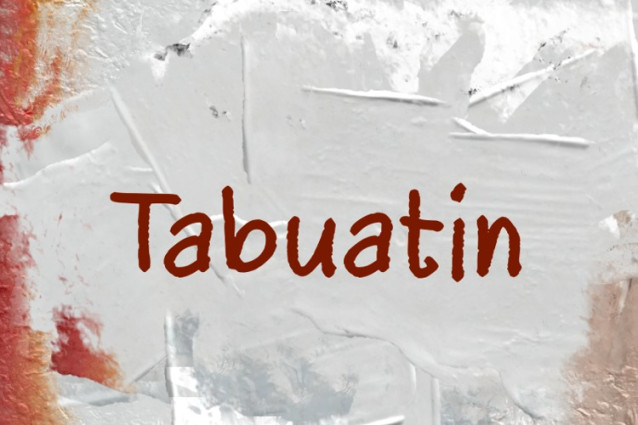
Tabuatin Font
Tabuatin Font, is a simple and friendly handwritten font. Its natural and unique style makes it incredibly fitting to a large pool of designs. The only limit is your imagination!